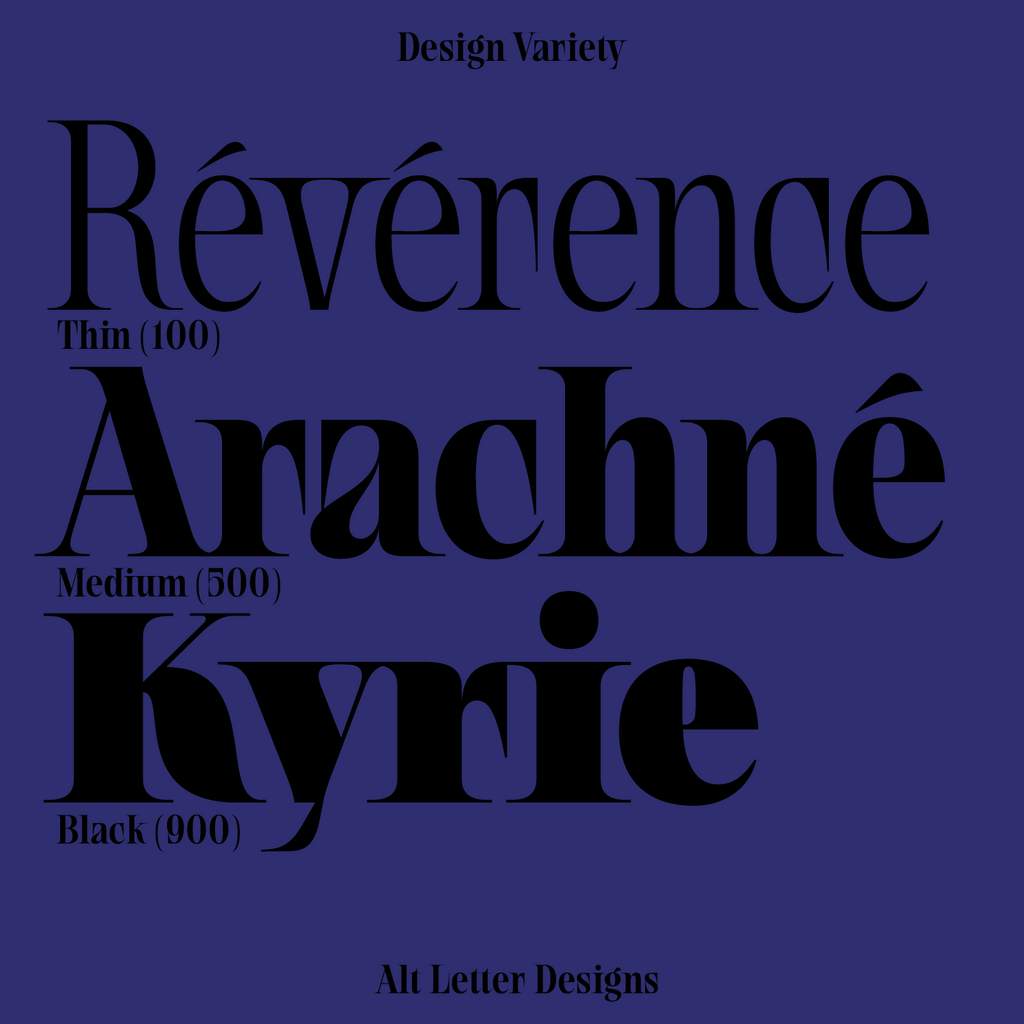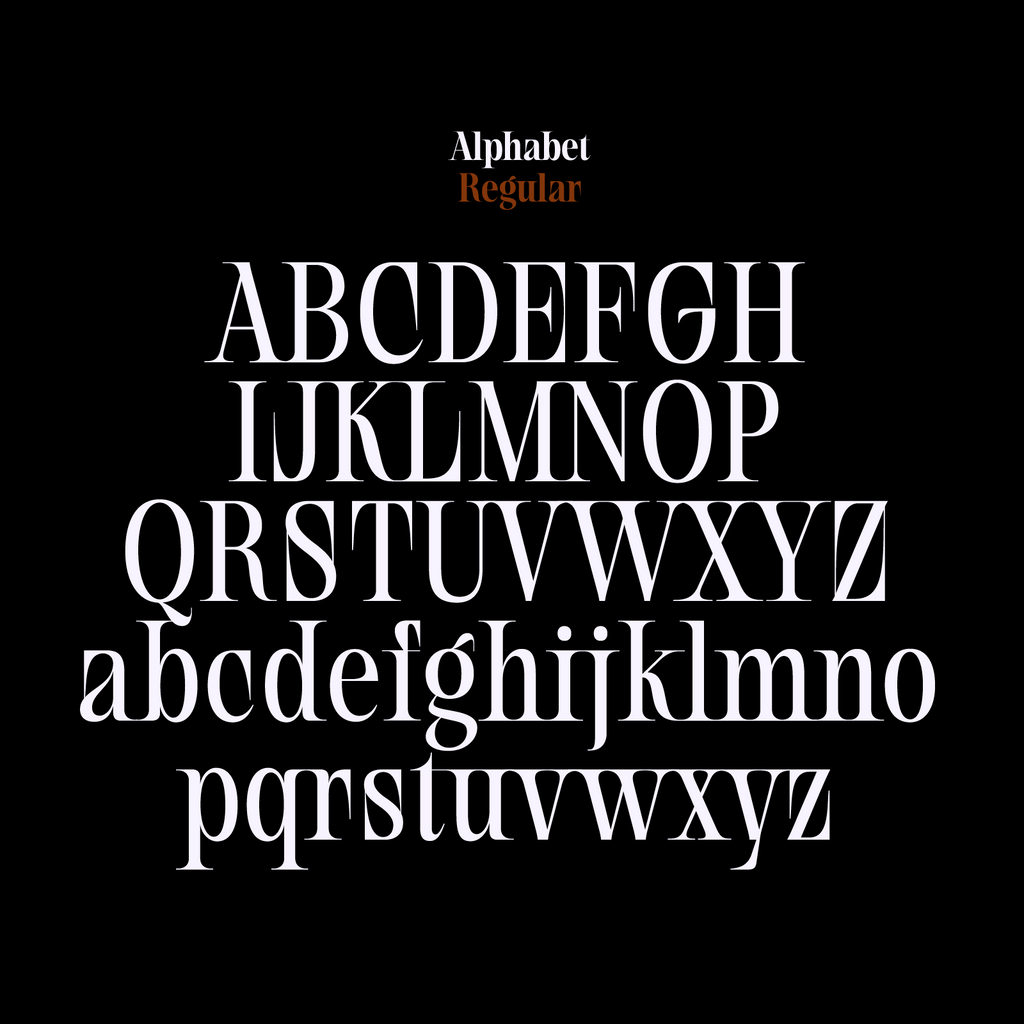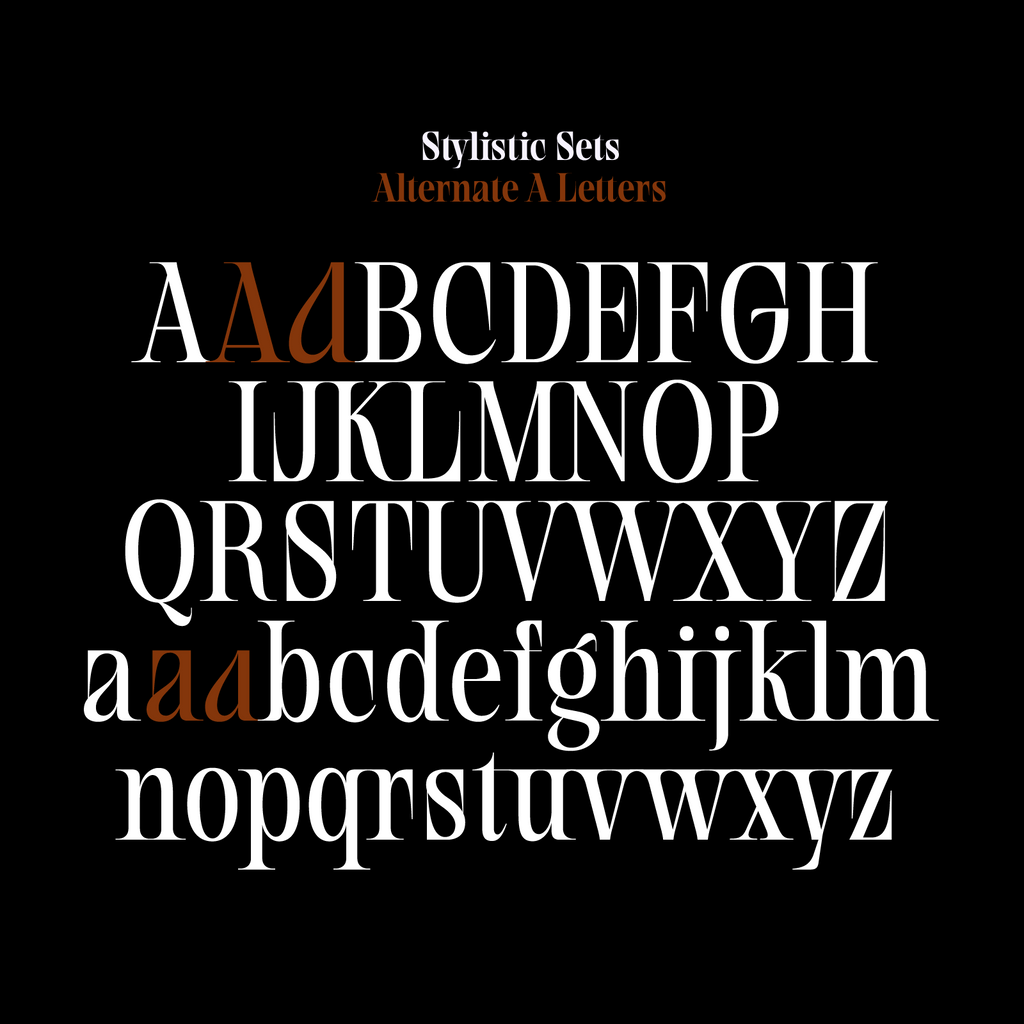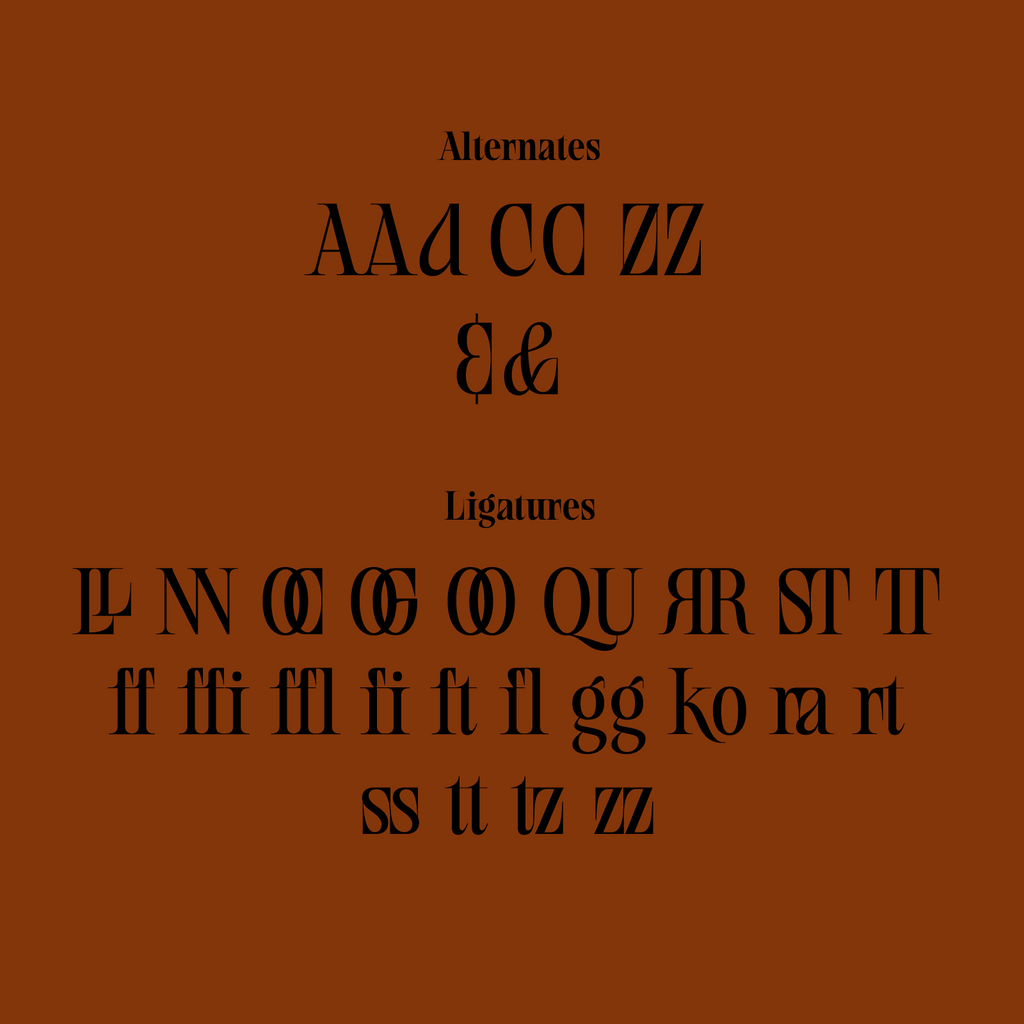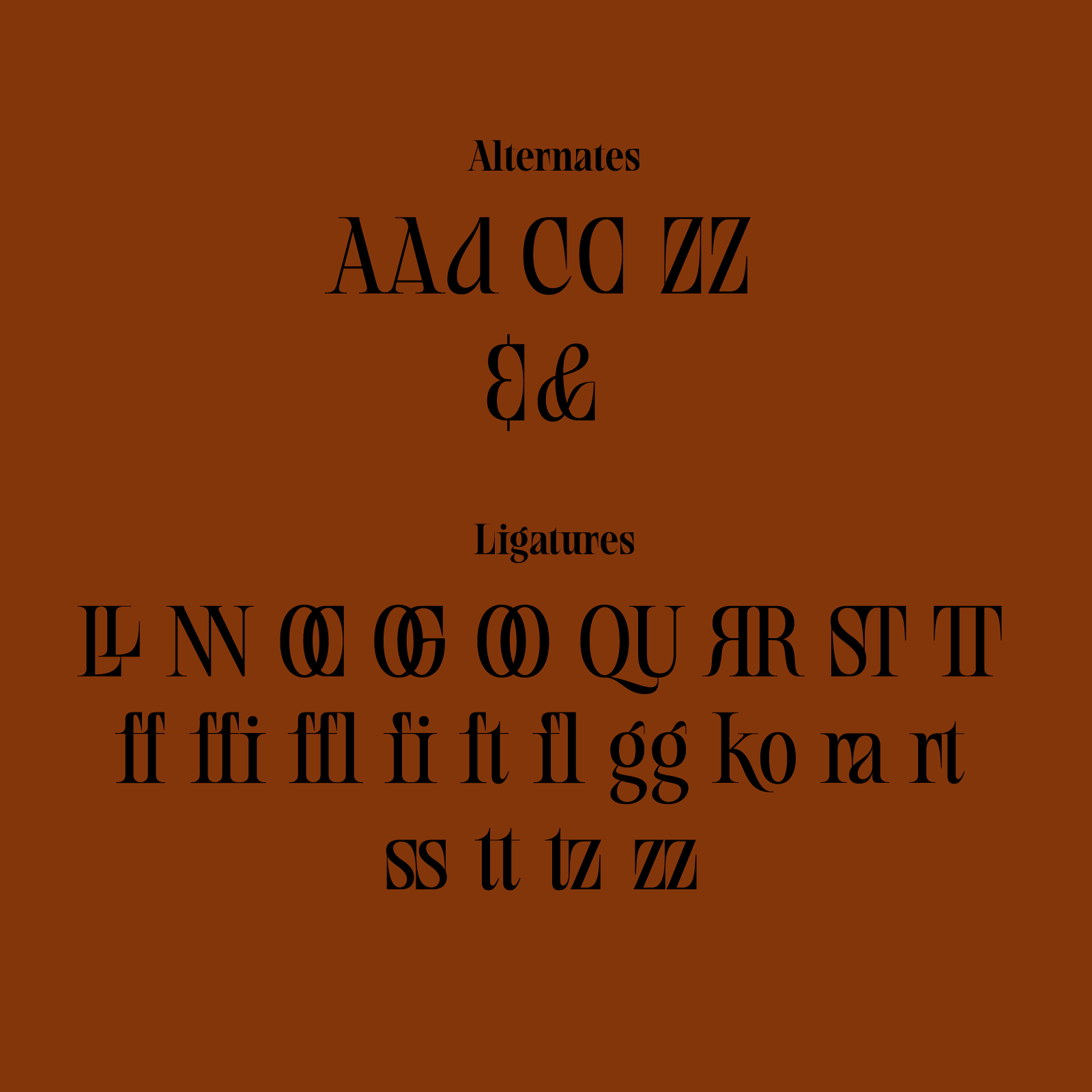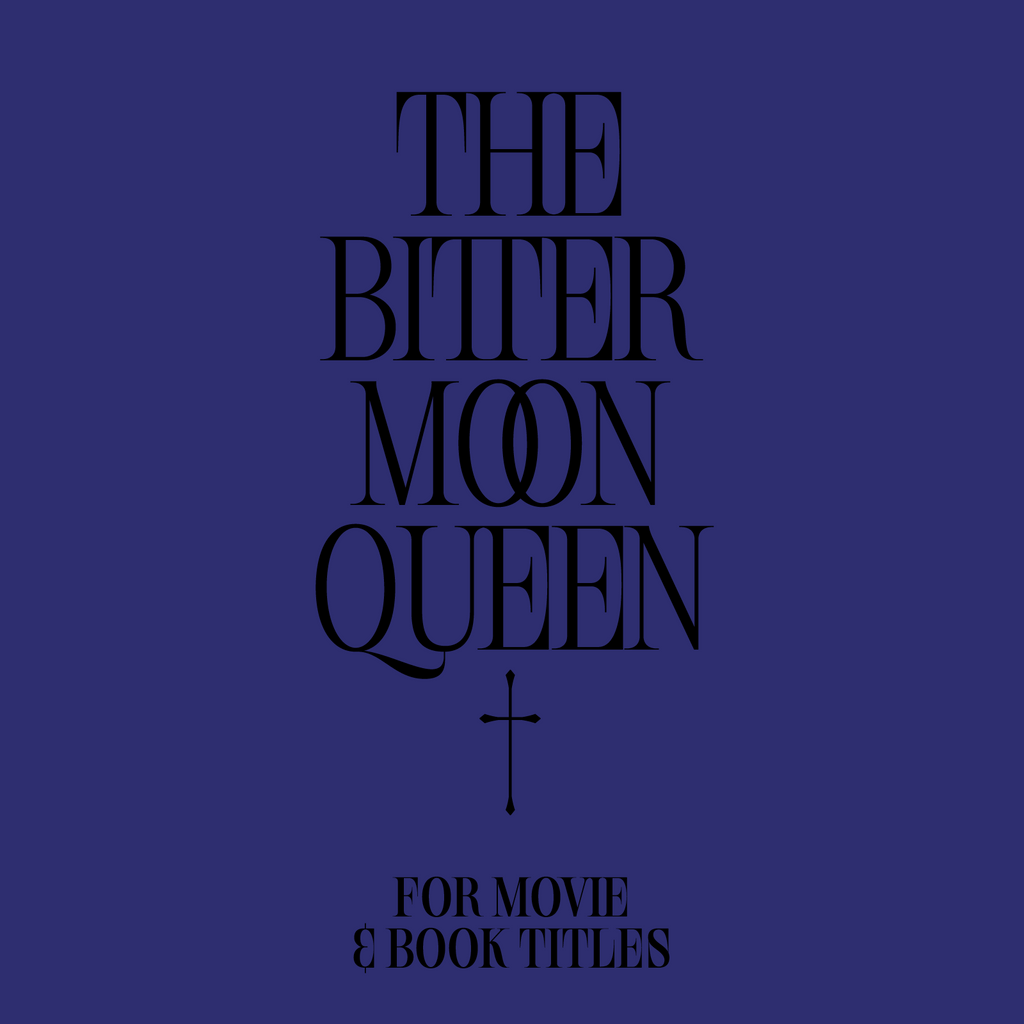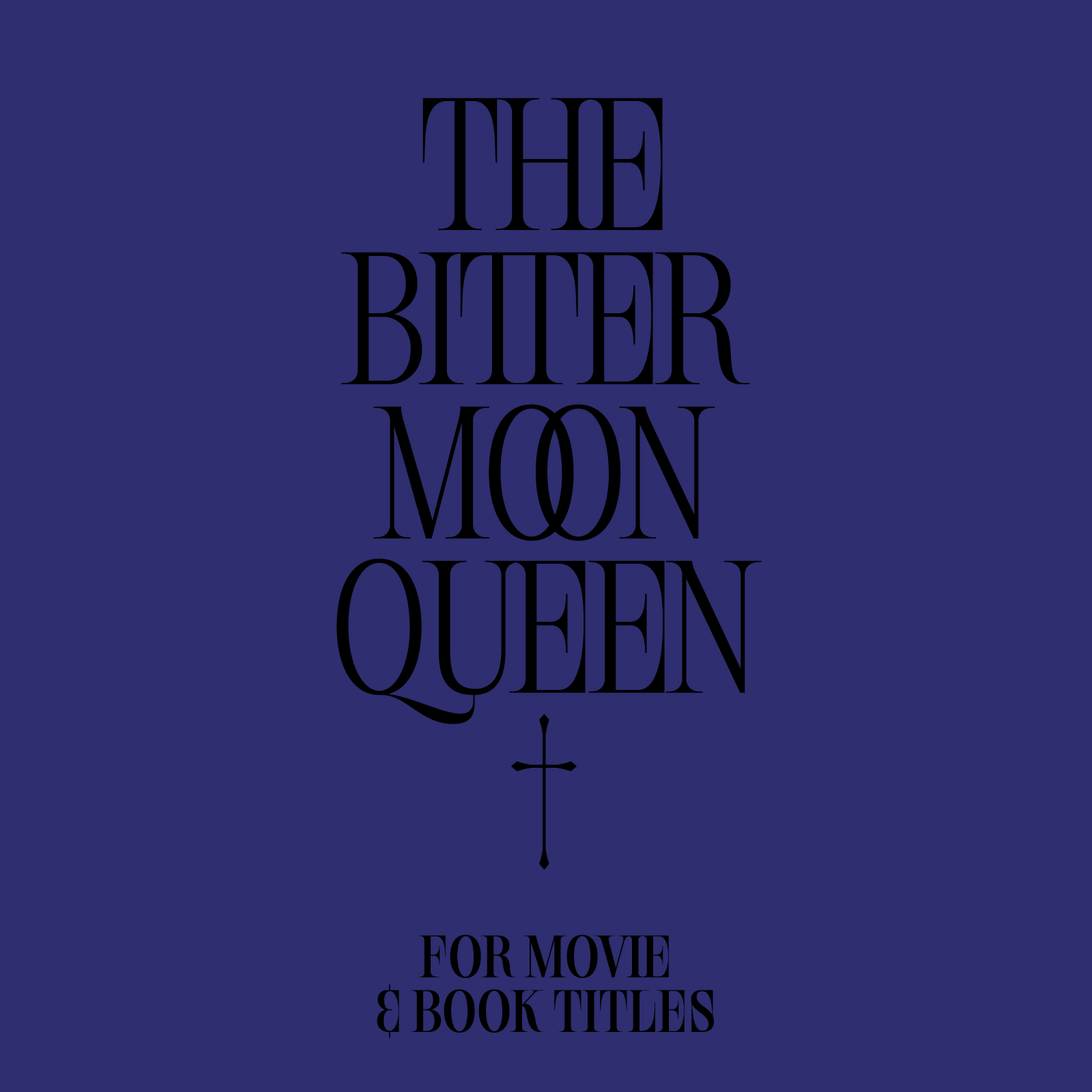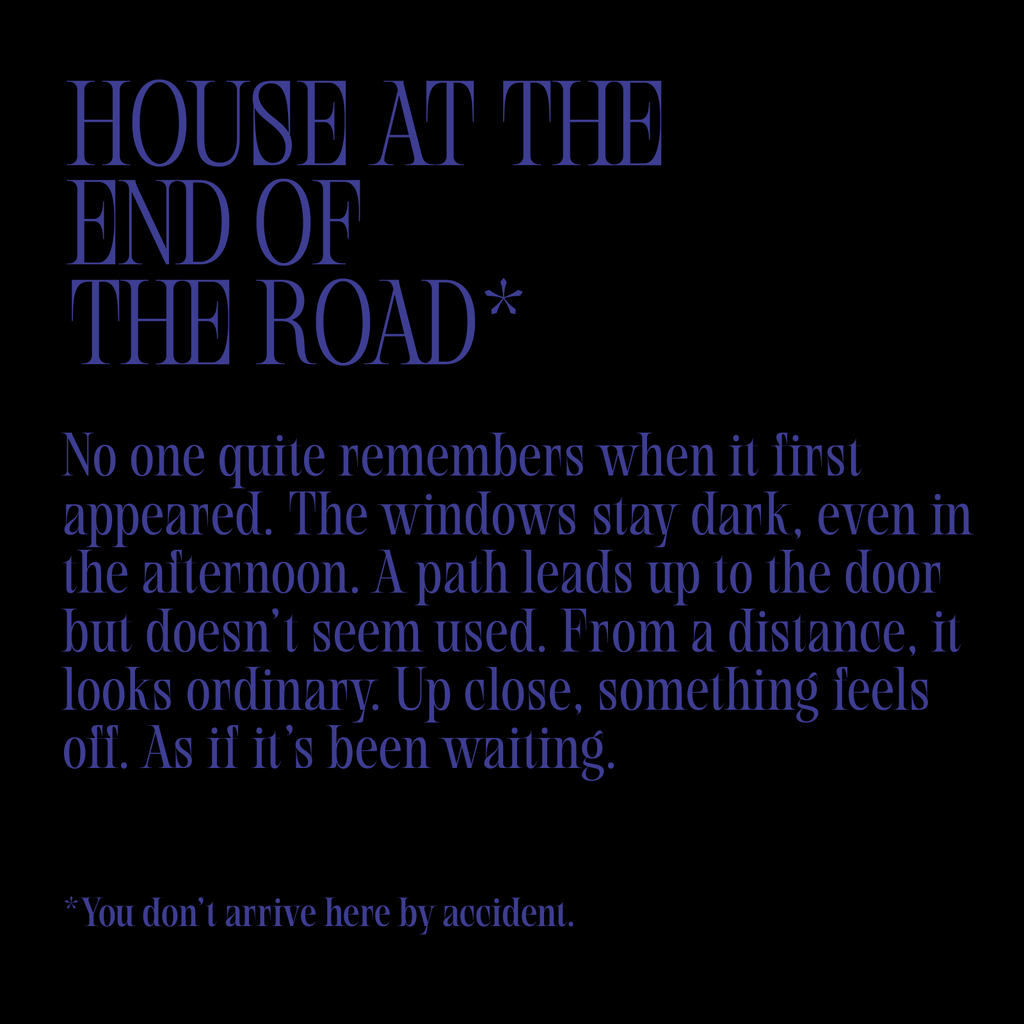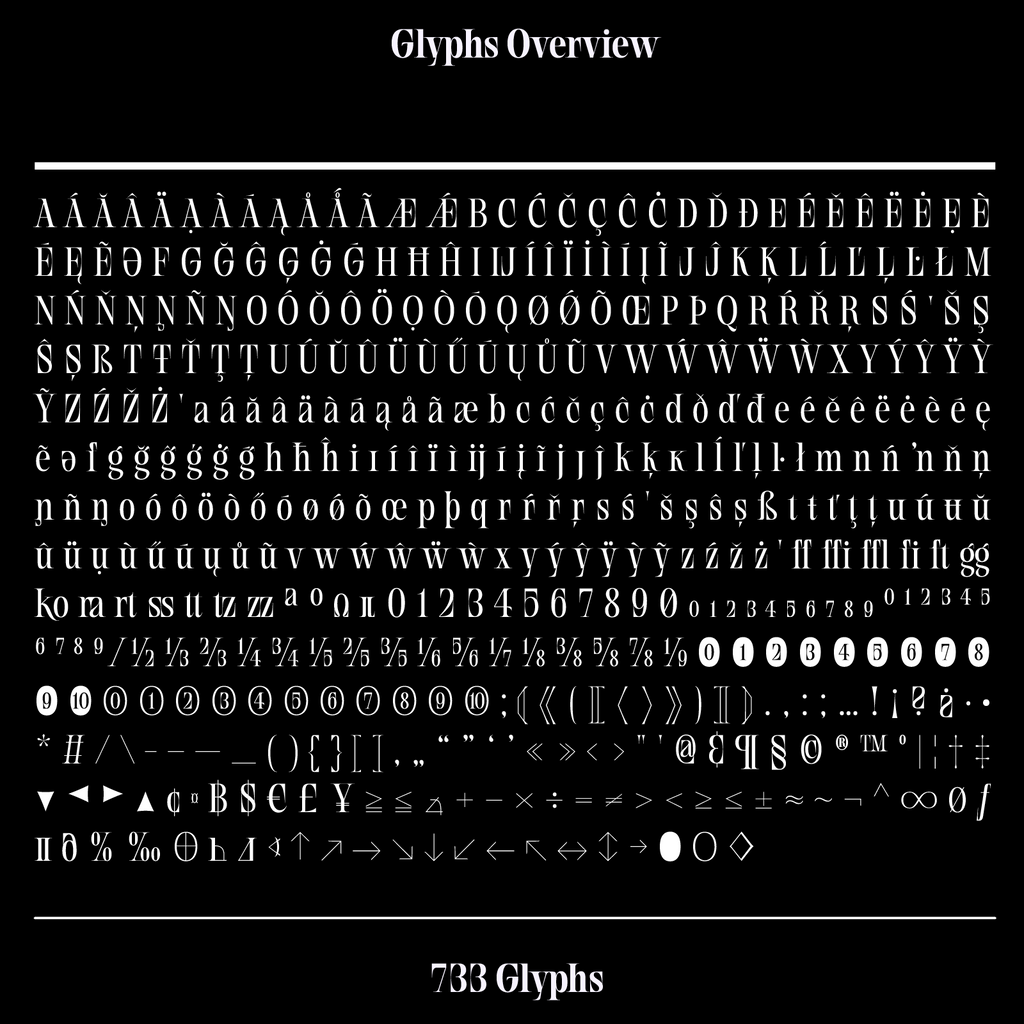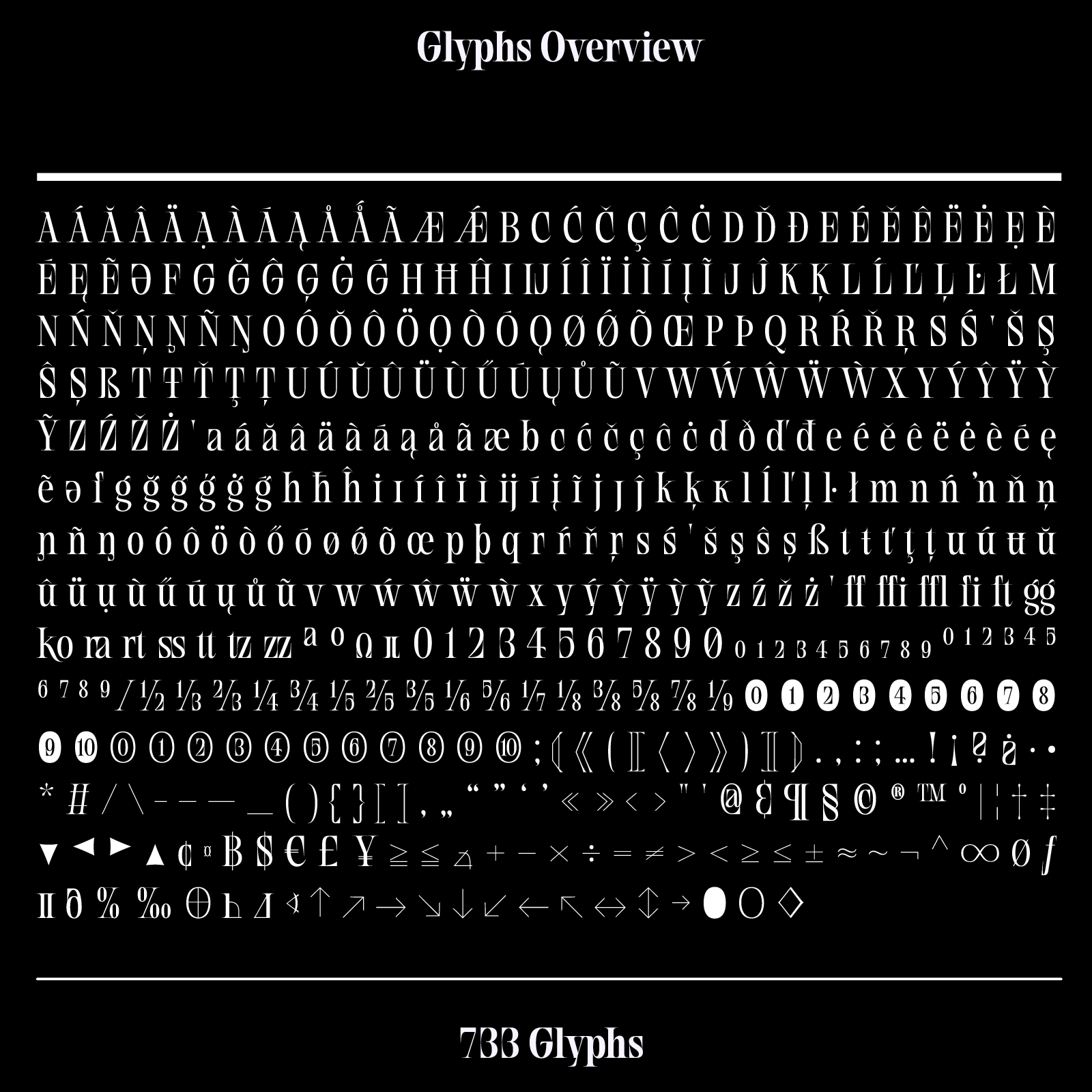
Cinematic serif font family 'Aezra' displayed on a black background
Aezra—Condensed Serif Font, Long Serifs
About Aezra · Condensed serif · Gothic
Moody, inky and cinematic.
Aezra is a condensed, sharp serif font with long terminals that taper down. The slim, inky serifs are designed so that letters connect when typing. While Aezra expresses a gothic and cinematic quality, the typeface remains beautiful for book titles, movie branding, and moody campaigns. Alternate glyphs for design variety.
Available in 9 single weights and as a full family which includes a variable font.
The moody, occult edge suits book covers, posters, beauty and editorial branding.
Its spidery serifs and sharp points work well for witchy, magical and Halloween designs, like spell-book covers, tarot cards and horror posters.
• Book covers
• Movie branding
• Halloween
• Tarot cards
• Beauty
Aezra · variable, 100 to 900
9 + VFweights, Thin to Black, plus one variable file
757glyphs
11stylistic sets
LatinWestern and Central European
Aezra is a witch font. The stems join like a spider’s web, and the letters stay condensed, sharp and dark.
A condensed serif with high contrast and long, tapering serifs that touch their neighbours, so a word sets as one dark band.
The light weights are tall and spidery; from SemiBold up the counters close to slits. Book covers, film posters and beauty packaging with a darker mood.
Aezra in detail
Family
9 weights, Thin to Black, plus a variable font. 757 glyphs, 11 stylistic sets.
Languages
Latin, Western European, Central European.
Figures
Proportional, tabular, slashed zero.
OpenType
Contextual alternates, case-sensitive punctuation, discretionary ligatures, fractions, standard ligatures, ordinals.
Ligatures
ff fi fl ffi ffl ft tt TT gg rt zzon by defaultoo OO OC OG QU RR LL ra ss NNdiscretionary, switch on in your app